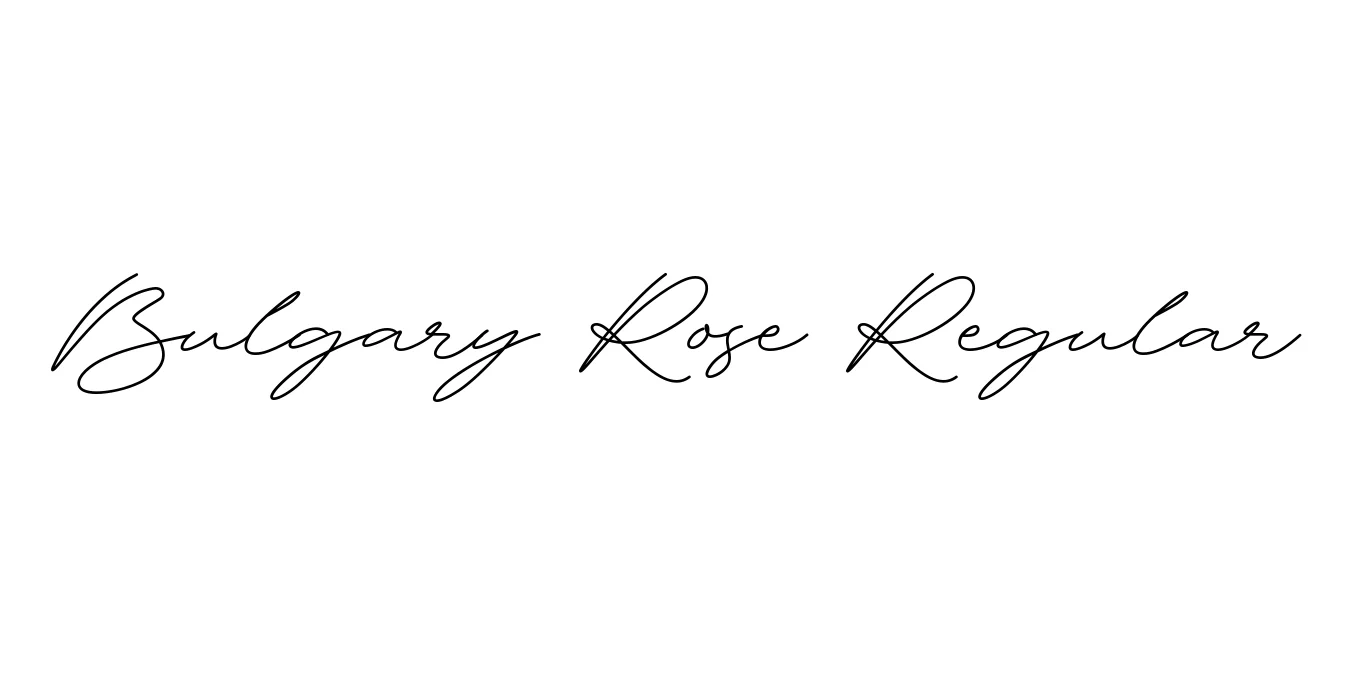
Bulgary Rose Regular
Bulgary Rose Regular is a sophisticated and graceful modern calligraphy typeface designed to bring an air of elegance to any creative project. Characterized by its fluid strokes and delicate flourishes, this font captures the essence of hand-drawn artistry with a contemporary twist. It was crafted specifically to cater to high-end branding and wedding stationery, providing a seamless blend of legibility and ornamental beauty.
Over time, Bulgary Rose has become a favorite among graphic designers for its versatile nature and extensive OpenType features. The font includes various alternates and ligatures that allow for a truly customized typographic experience. Whether used for a minimalist logo or an elaborate invitation, it maintains a consistent sense of luxury and professional craftsmanship, making it a staple in modern digital typography collections.
Bulgary Rose Regular Best Uses
Ideal for invitations, RSVP cards, and seating charts.
Perfect for creating high-end logos for fashion or beauty brands.
Great for elegant quotes and promotional graphics on platforms like Instagram.
Adds a premium feel to cosmetic or luxury product labels.